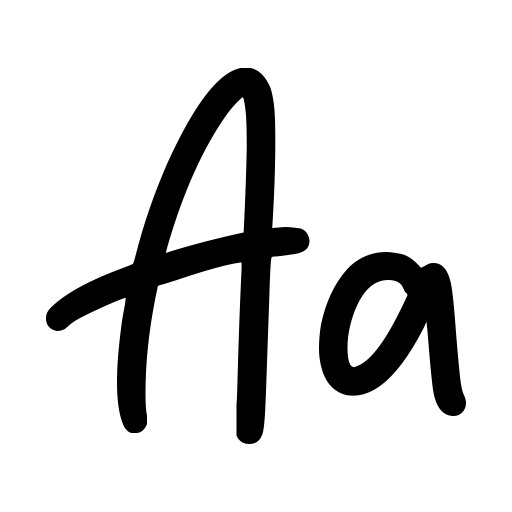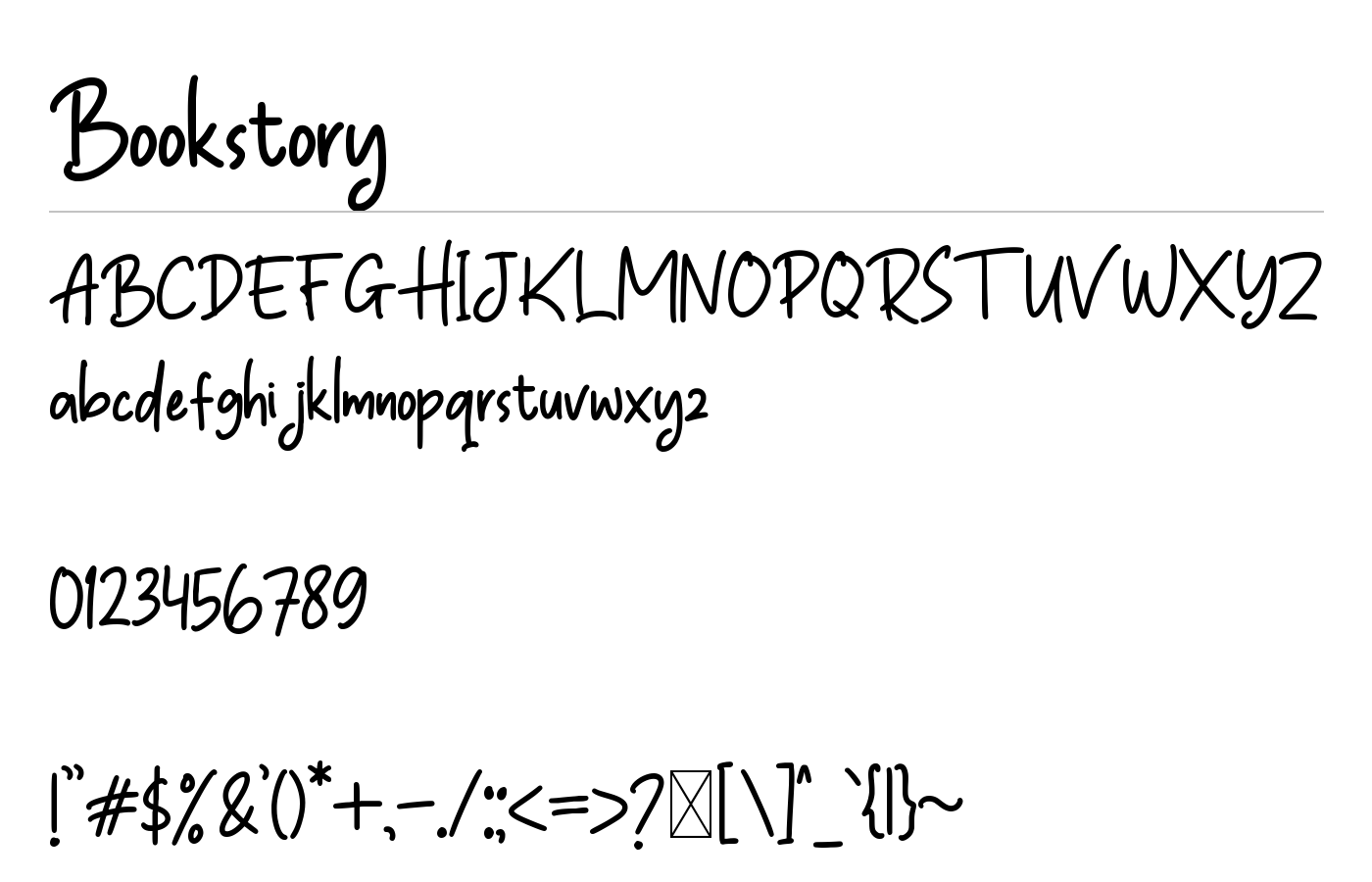
Bookstory is a playful, handwritten sans serif font with a casual and friendly vibe, featuring a light weight and slightly condensed letterforms with a modest x-height that enhance readability. Its smooth, natural strokes and informal shapes make it ideal for projects needing a personal, approachable touch like children’s books, creative branding, or casual web content. This font works best in headlines and short texts where a warm, inviting personality is desired.
Bookstory Font
About Bookstory Font
| Font family | Bookstory Font |
| Designer | Mozarella.std |